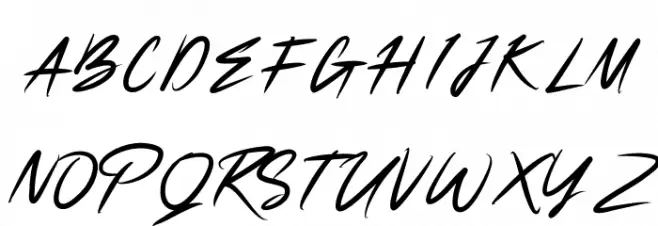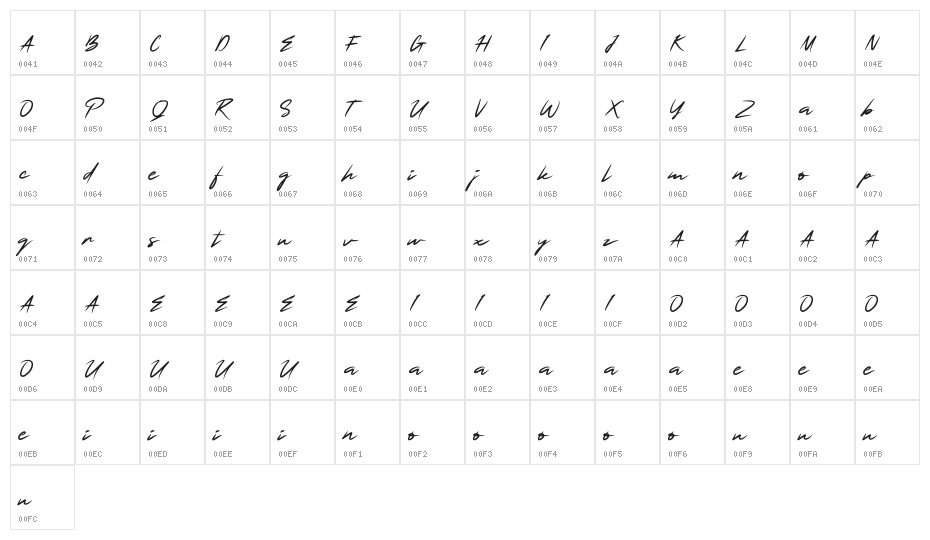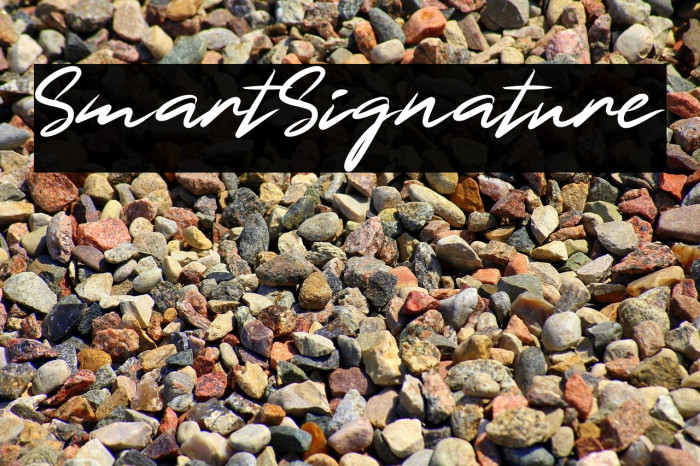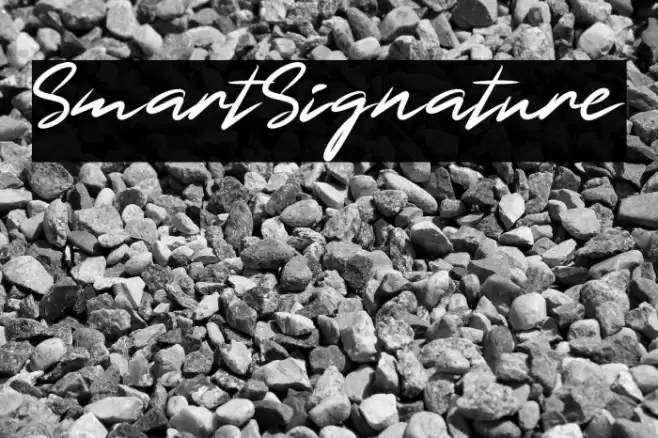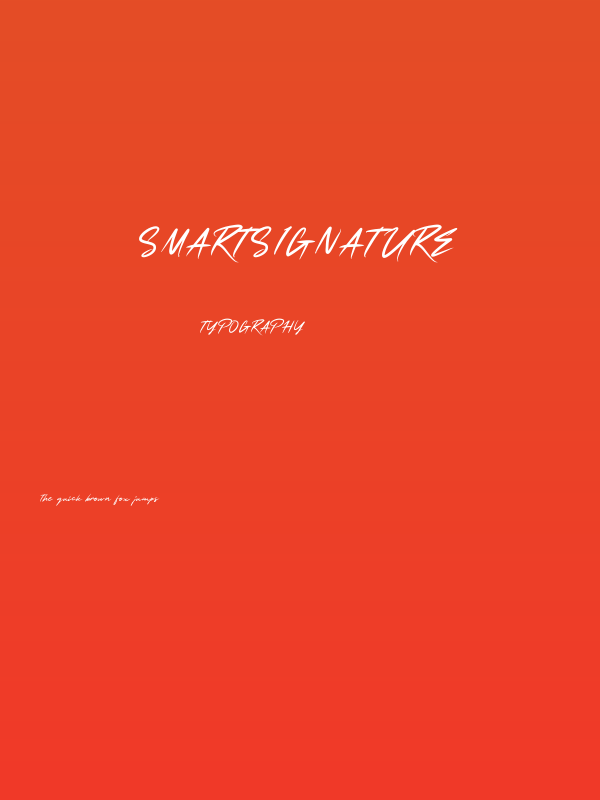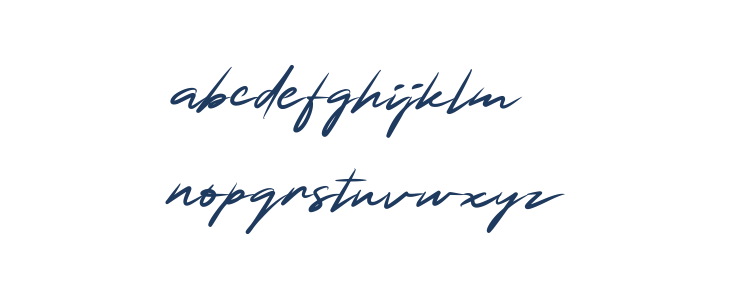
SmartSignature Font
SmartSignature Description
This font embodies a dynamic and expressive handwritten style, characterized by its fluid and cursive strokes. The letters are elegantly slanted, giving a sense of motion and energy. The uppercase and lowercase characters maintain a consistent flow, with slightly exaggerated curves and loops that enhance its artistic appeal. The font's design is reminiscent of a personal signature, conveying a sense of individuality and flair. Its bold strokes and varying line thicknesses add depth and dimension, making it suitable for creative and eye-catching designs.
| Use Case | Logos, Headlines, Artistic designs |
| Proposed Projects | Ideal for branding projects, personal logos, invitations, and artistic posters. |